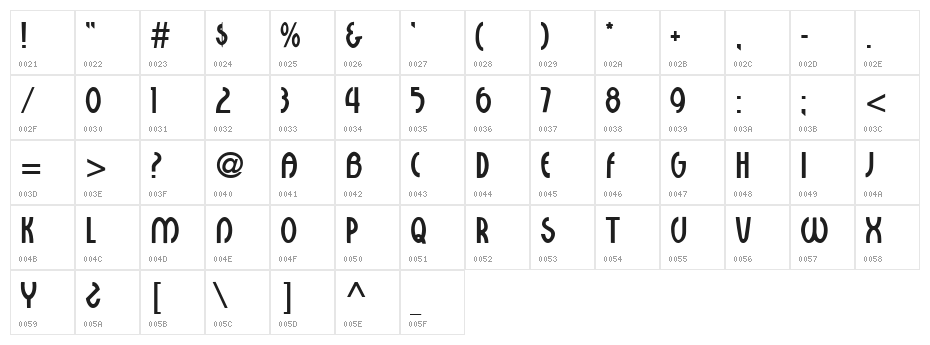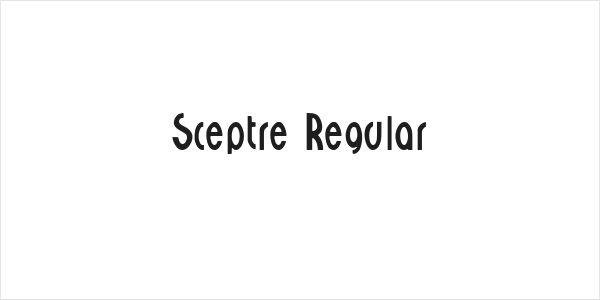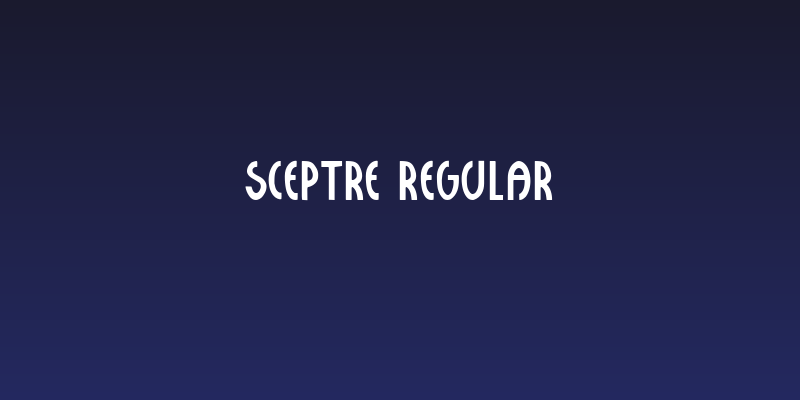
Sceptre Regular Font
Sceptre Regular Description
This font features a unique and modern design with a geometric and rounded appearance. The uppercase letters have a distinct, bold presence, with curves that add a touch of elegance and sophistication. The lowercase letters maintain a consistent style, complementing the uppercase with their rounded forms. Numbers are clear and easy to read, following the same geometric style. Special characters are well-integrated, ensuring versatility in various design contexts. The overall look is clean and contemporary, making it suitable for modern design projects.